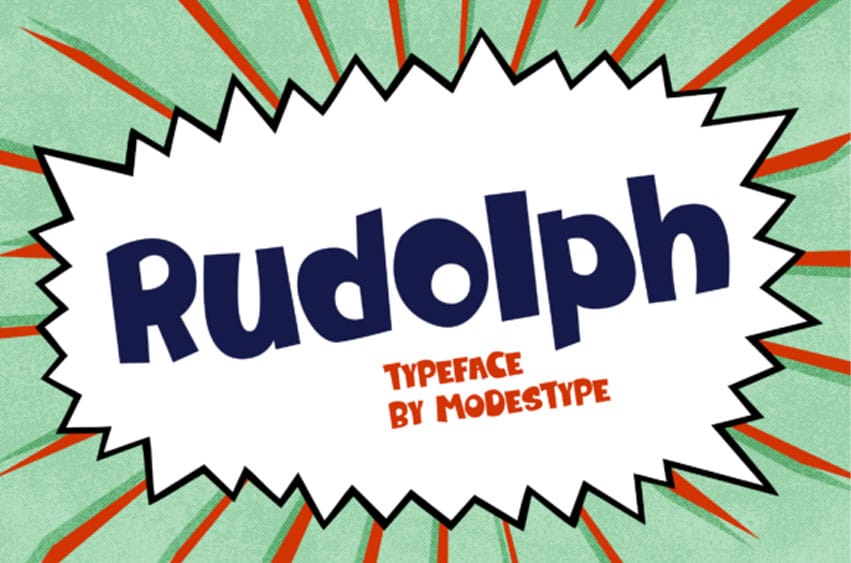
Rudolph Playful Font is a cool, casual and comic styled display font.
Whether you’re using it for crafts, digital design, presentations, or making greeting cards, this font has the potential to become your favorite go-to font, no matter the occasion!